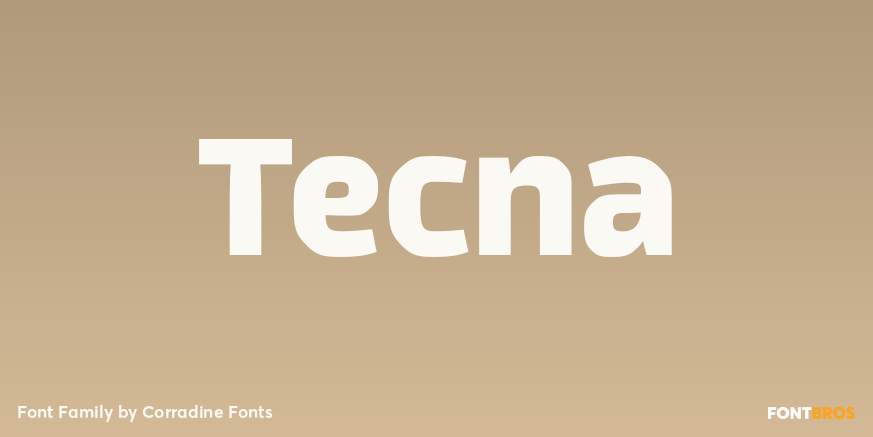
Tecna
About Tecna
Tecna is a modern sans typeface with straight cuts, rounded angles and curved thinnings at the endings that make the letter shapes fresher. The rounded characters are squarish giving to the layout a very structural appearance. Its wide proportions give…